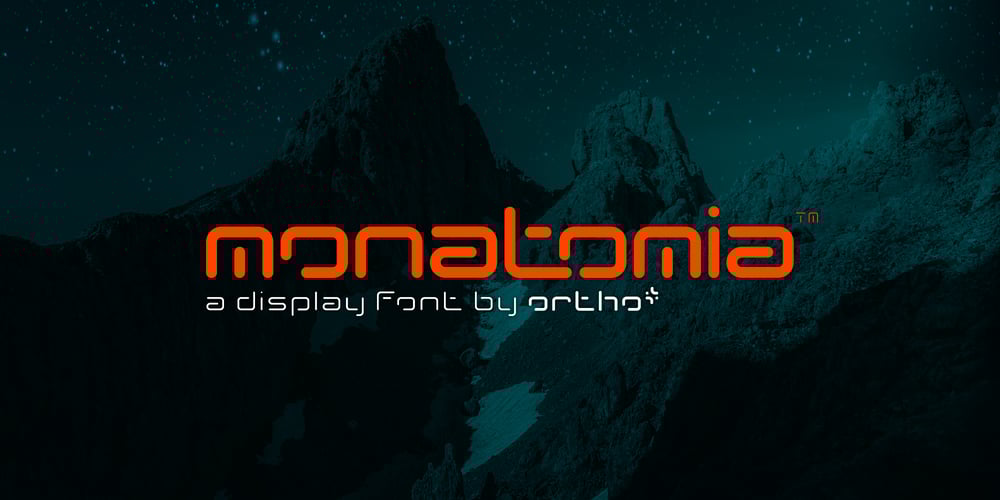
Monatomia Font Family was designed by Omar Sacca and published by Ortho. Monatomia contains 2 styles and family package options. Introducing Monatomia, a new display font by Omar Sacca a.k.a. ortho*. Monatomia is a font that is sure to make a statement in any design project. With stencil shapes designed to mimic the look of neon signs, Monatomia has a retro-futuristic twist that is truly unique.Featuring 191 glyphs in two styles, Monatomia is the perfect font for creating quick and effective logotypes or titles. Whether you’re working on a poster, a website, or a packaging design, Monatomia will bring a fresh and eye-catching look to your work.So don’t wait any longer! Add Monatomia to your design toolkit and start creating bold, neon-inspired designs that will grab attention and make an impact.